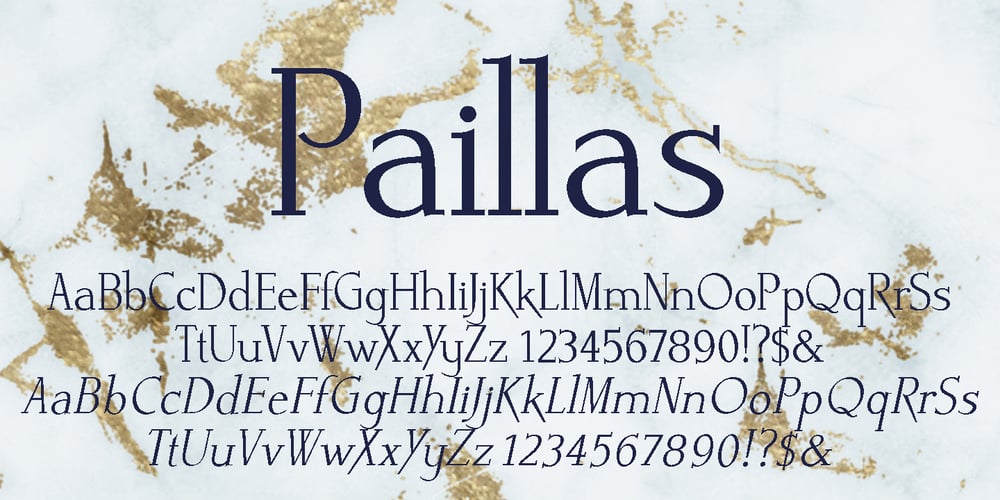
Paillas Font Family was designed by Gert Wiescher and published by Wiescher Design. Paillas contains 4 styles and family package options. Paillas is a very elegant and unusual Antiqua typeface I have been working on during the last three years. So far I just have the normal and oblique cuts, but eventually I will design a bold version as well. I only sell the pair, but for a fair price. Your very dedicated Gert Wiescher